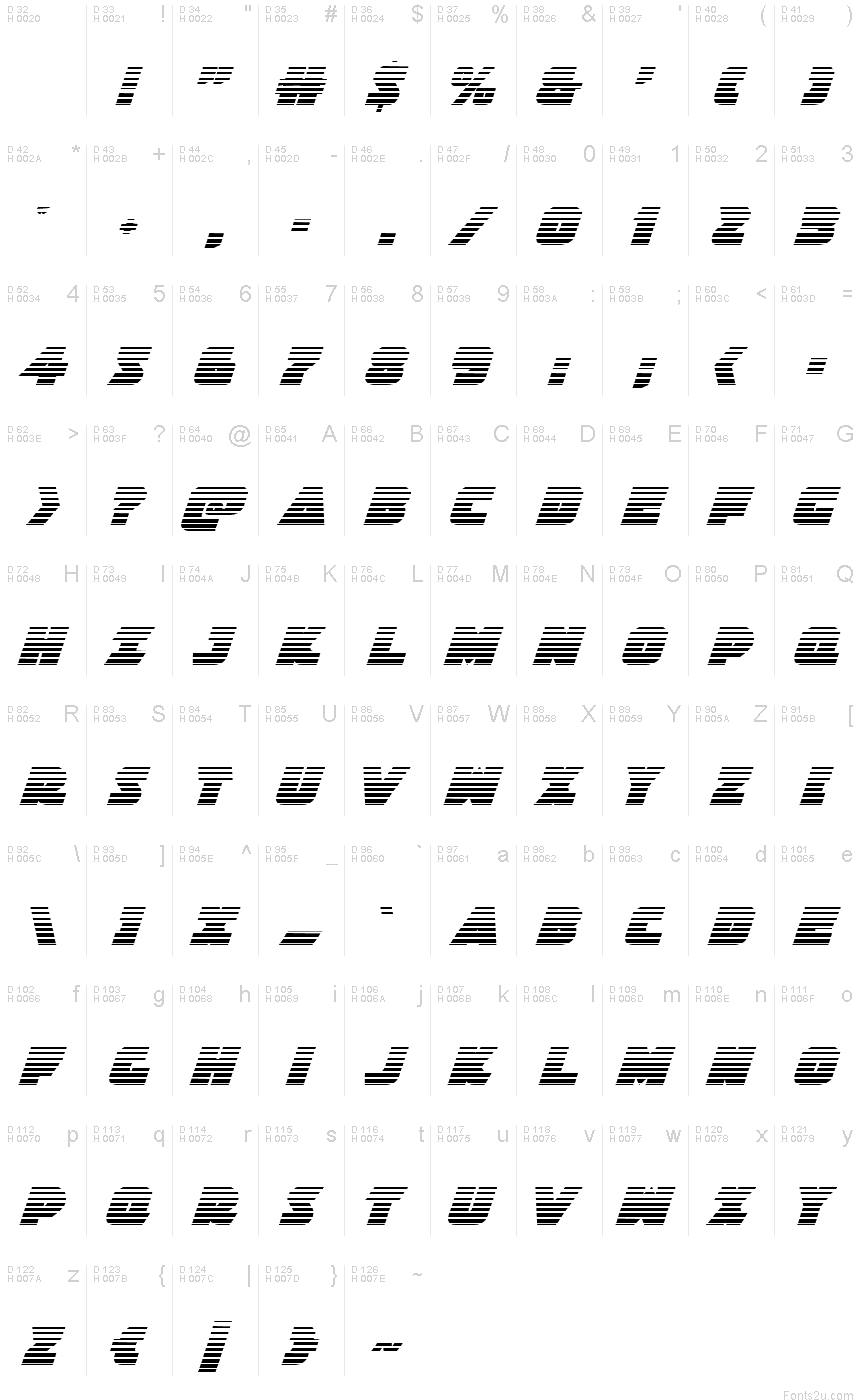
Jedi Special Forces Gradient Italic from Iconian Fonts is a free futuristic eroded display font with a broad, forward-leaning stance. Repeated horizontal gaps slice the wide letters into fast, mechanical stripes.
Science-fiction games and motorsport merchandise are very different settings, but both suit its engineered speed. It also fits electronic music posters and technology packaging, where the broken bands can echo scanlines, vents, or motion graphics. In product branding, the lettering becomes part of the machine-inspired image rather than a neutral label.
Jedi Special Forces Gradient Italic